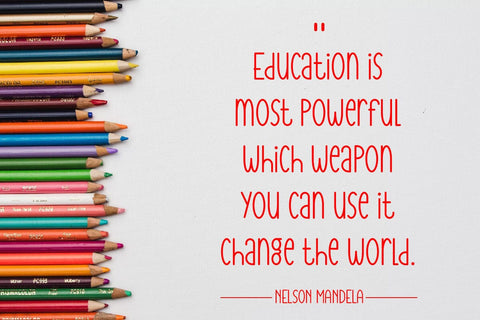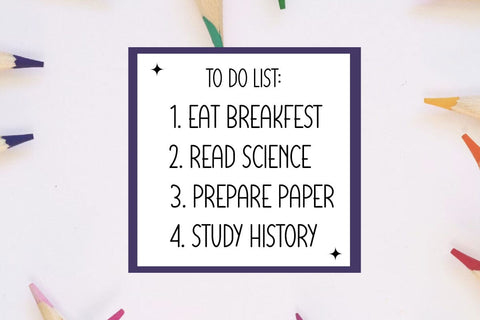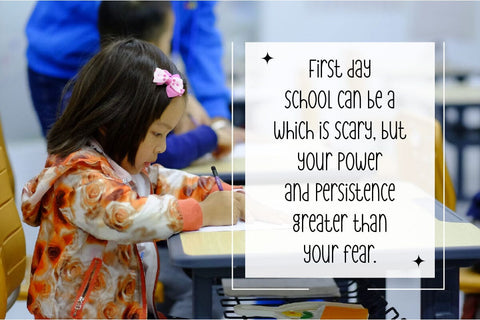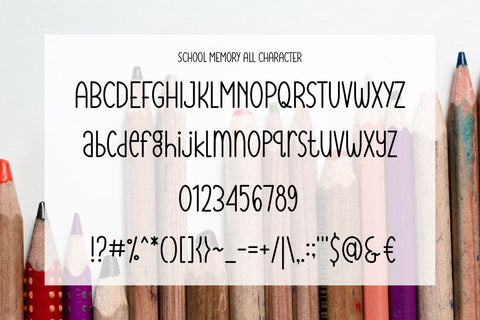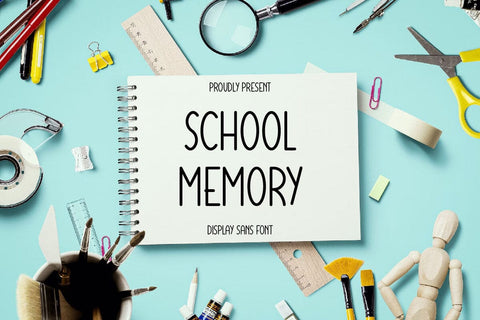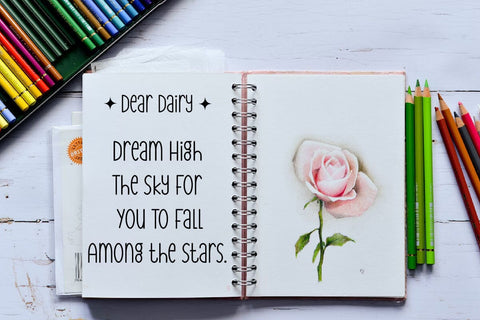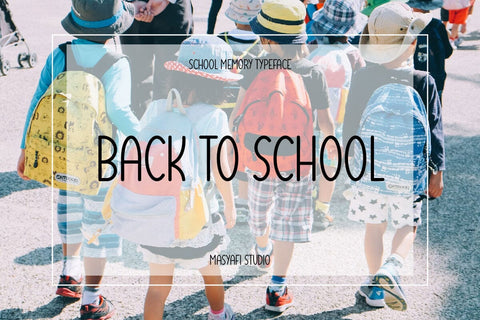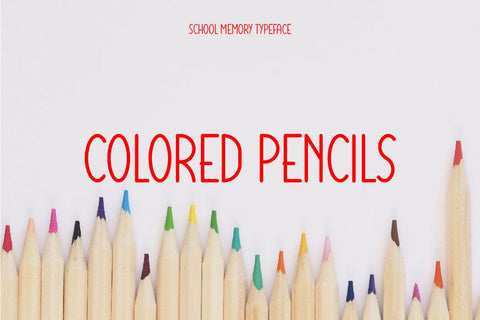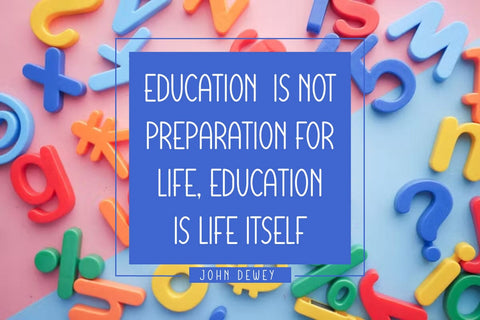
School Memory - Playful Sans Serif Font
Hi, Introducing School Memory - Playful Sans Serif Font
A Sans Serif font with a cute line style. This font was created with the inspiration for the Back To School theme. so, this font is really cool for craft needs about Back To School theme. such as bags, book covers, books, labels, schedules, planners, kdp, to do lists, clippings, stickers, crafts, cricut, branding, wall hangings, learning needs, and many other ideas